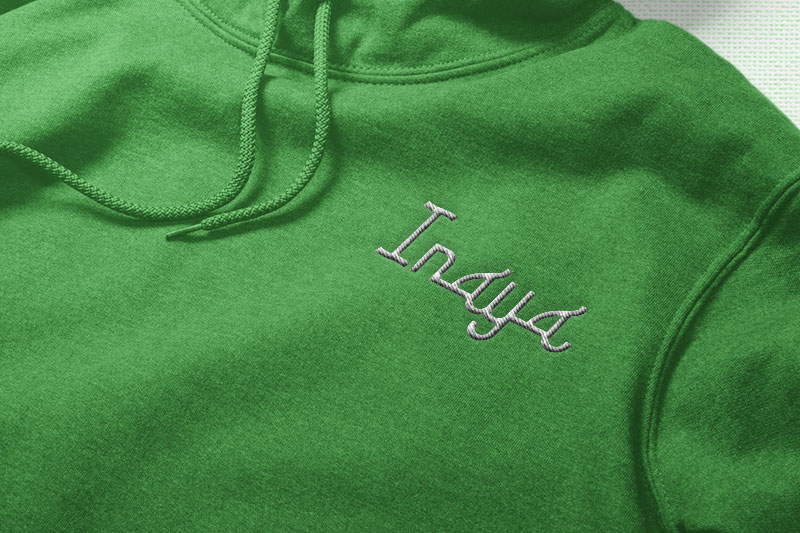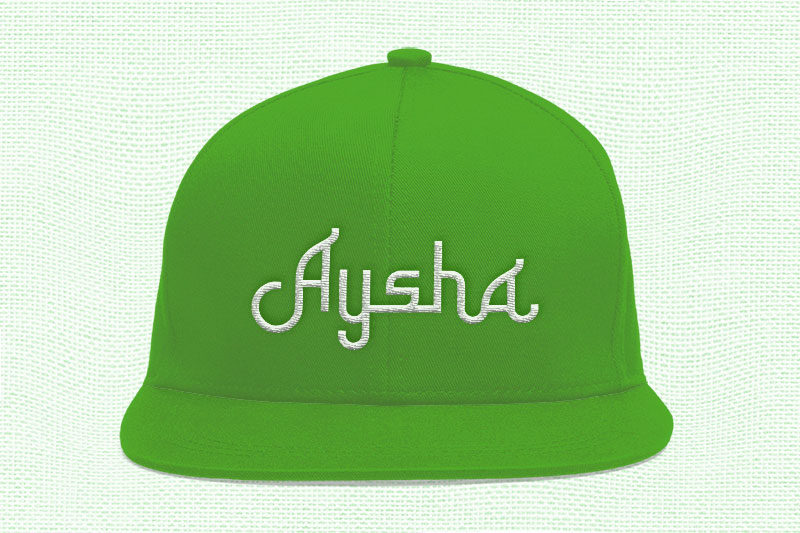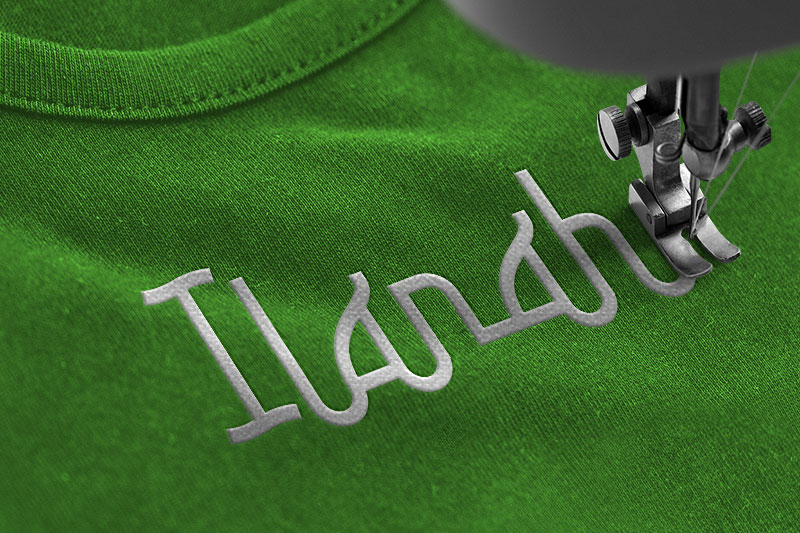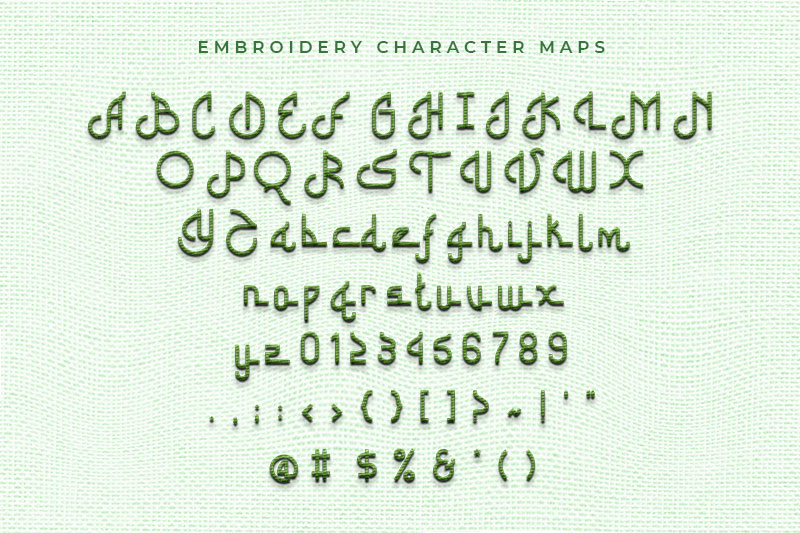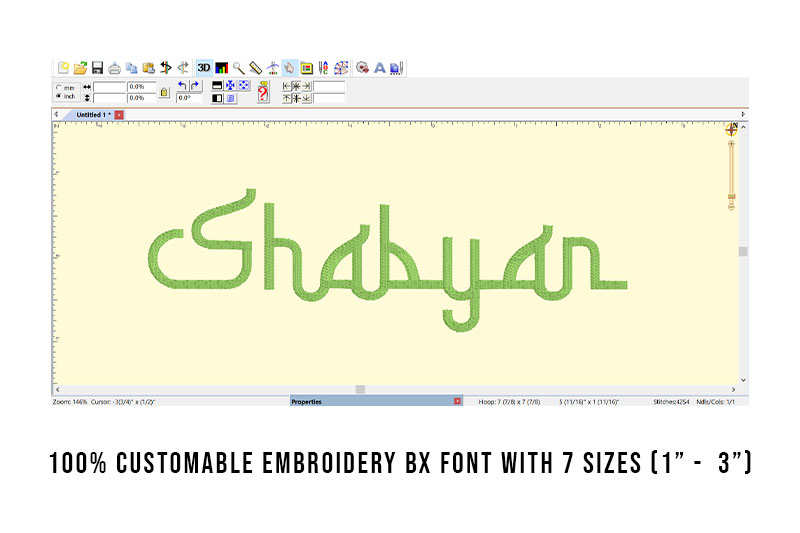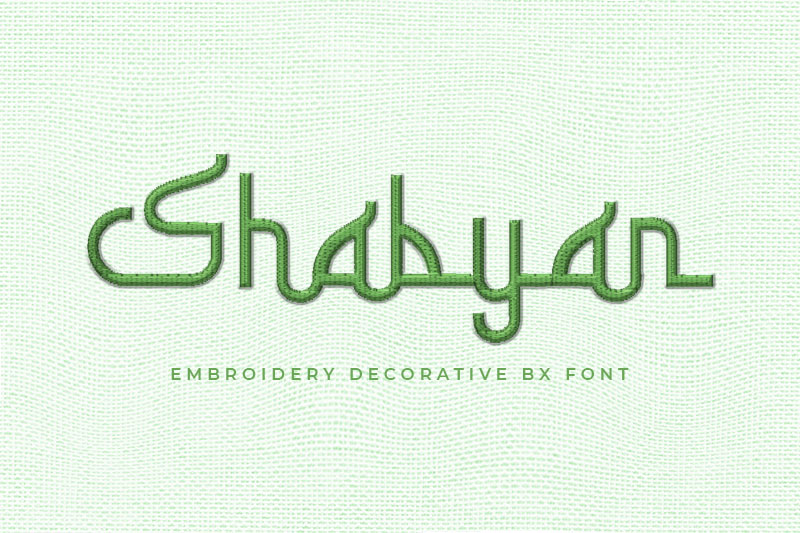
Shabyan Embroidery Font is a modern Arabic embroidery font that presents a unique and attractive embroidery typographic appearance. This type of letter is a variation of embroidery fonts that have the theme of Arabic shades. This nuance is presently equipped with the themes and ornaments that accompany it.
Speaking of readability, Shabyan Embroidery Font is an illegible font. You have to see it carefully to understand it. This font was created to celebrate various celebration parties. As a digital font, Shabyan Embroidery Font can be used as a poster and banner at events such as celebrations in Islam, such as the Ramadhan month, Eid al-Fitr, and others. Welcome banners and party-themed posters for the invitees. Large print banners with medium font size will also be the best choice when using this type of letter font because it will attract everyone's attention with the words you write using this font when entering the room. Shabyan Embroidery Font can be used as an embroidery font such as a t-shirt, jacket, hat, bag, and others.